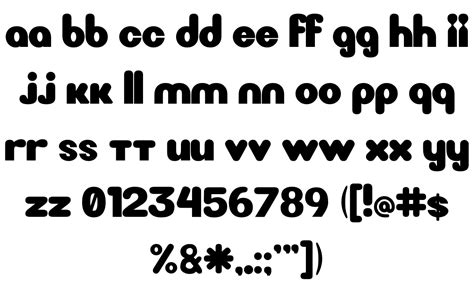
New LiteBulb Font FontSpace
New Litebulb Font. Votes, rated based on results identification. Web new litebulb is a font based on current nick logos, created by 538lyons in 2015.
Votes, rated based on results identification. Web new litebulb is a font based on current nick logos, created by 538lyons in 2015.
Web new litebulb is a font based on current nick logos, created by 538lyons in 2015. Web new litebulb is a font based on current nick logos, created by 538lyons in 2015. Votes, rated based on results identification.